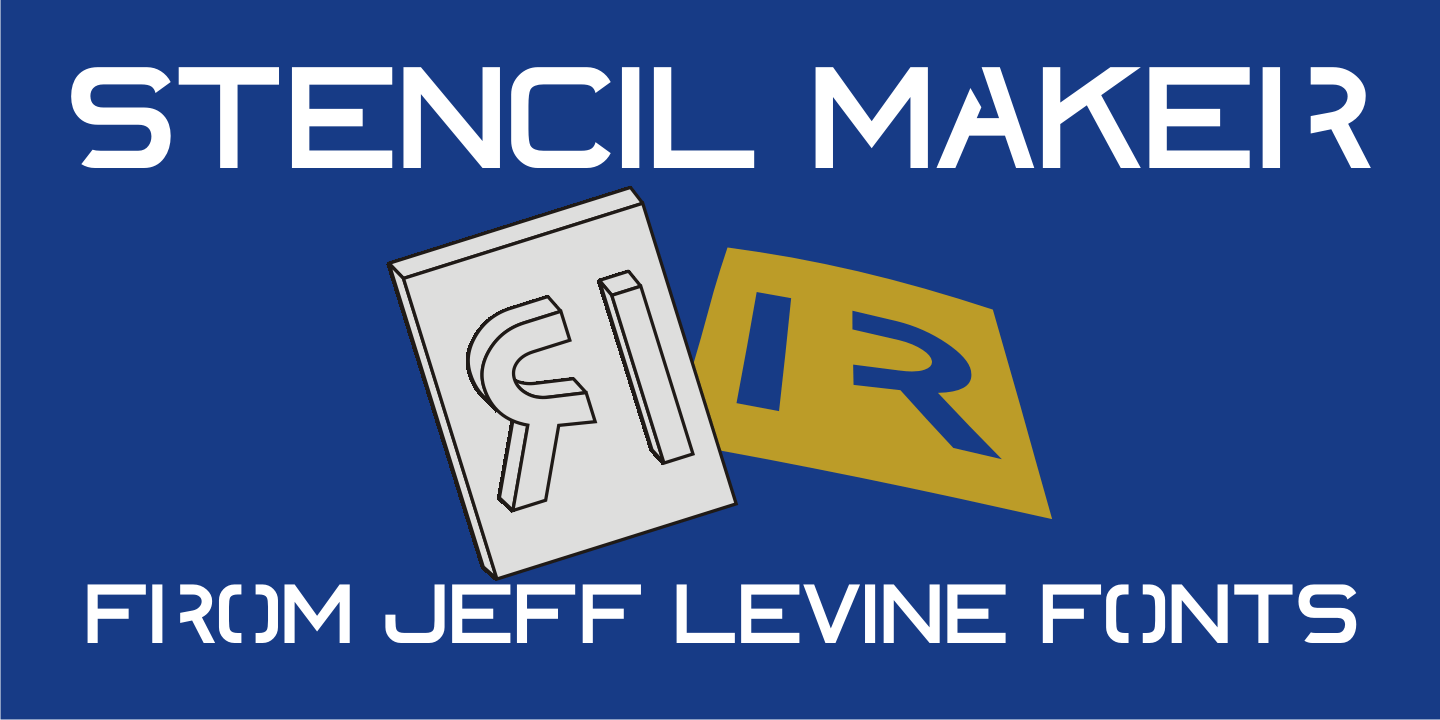
Stencil Maker
The type design which inspired Stencil Maker JNL comes from a 1920s-era machine used in movie theaters of the day. It rendered tiny punched out letters (some characters solid and some in stencil form), enabling the user to make projection slides of important messages or general notices for the theater audience to read.
Stencil Maker JNL Regular by Jeff Levine Fonts